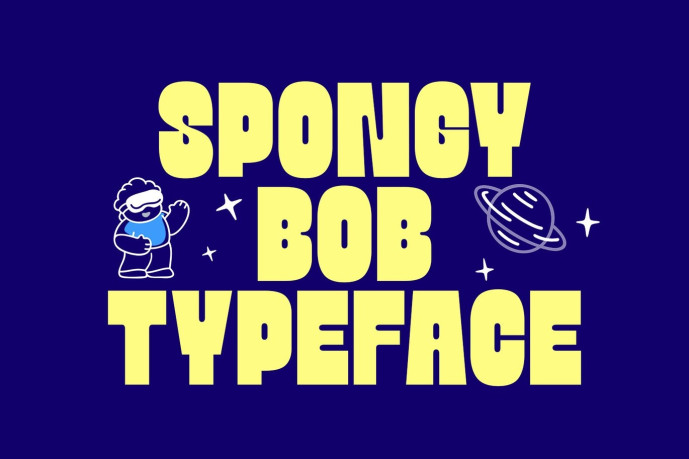
Spongy Bob Font
Designer: Foxtype
Spongy Bob Font a bold and playful display font inspired by cartoon-style lettering and sparkling shapes. With its thick strokes, soft curves, and eye-catching presence, this font is perfect for projects that require a cheerful and expressive feel.
Spongy Bob is designed to stand out in headlines, posters, branding, and children’s-related designs. Its bold, user-friendly lettering makes it highly legible while maintaining a fun and lively feel that appeals to the eye.